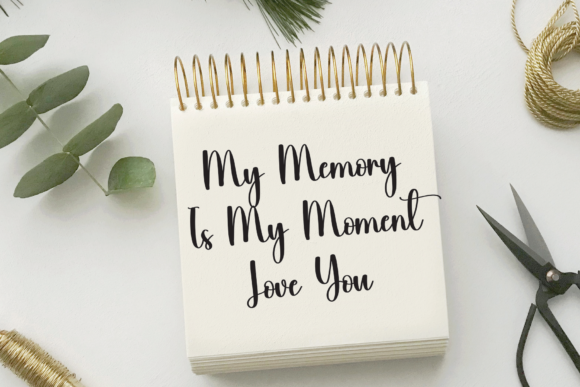
Flowerpink Font
db-ku.com - Script & Handwritten -- Flowerpink is a classy and stylish script font. It is perfect for any branding project such as logos, t-shirt printing, creative products, and more. It will look extraordinary in a variety of contexts.